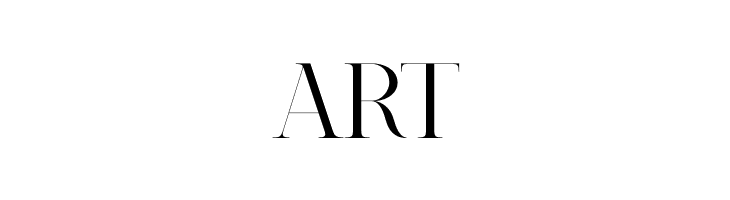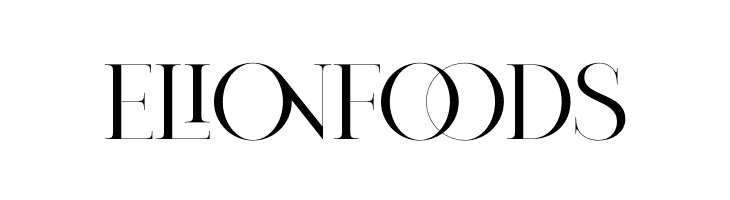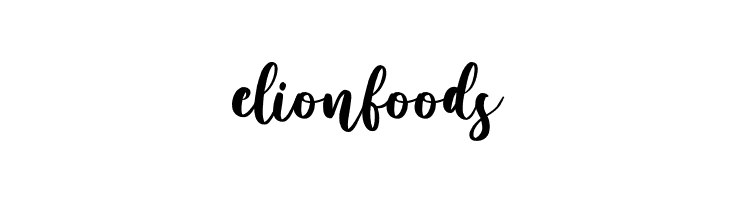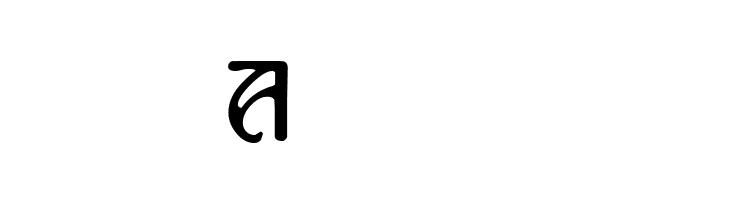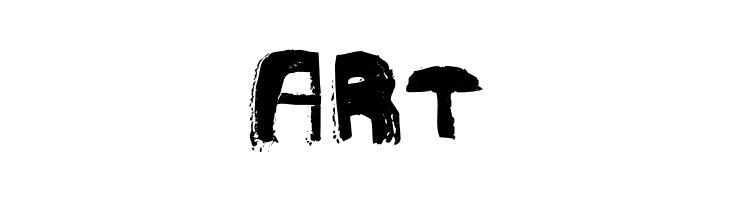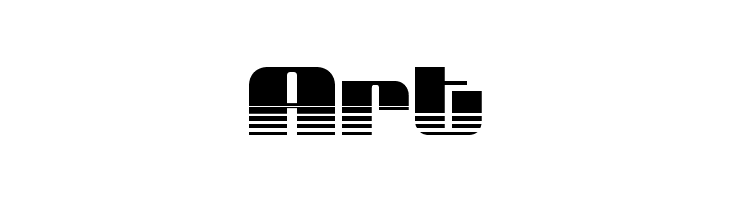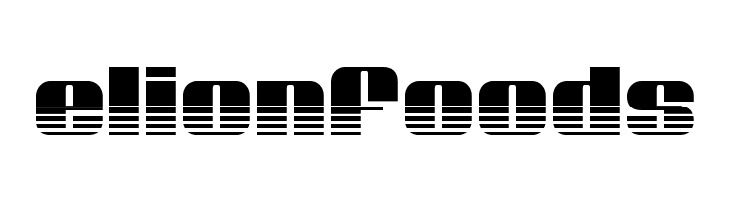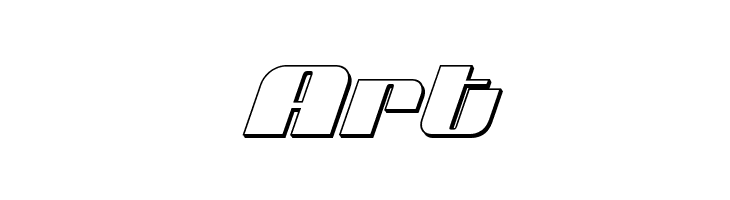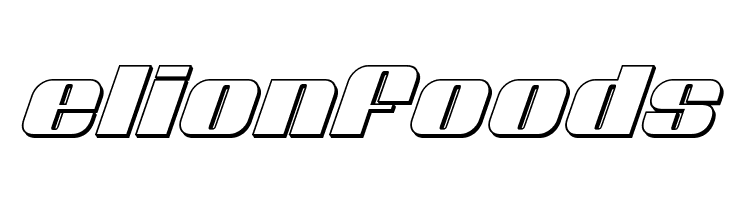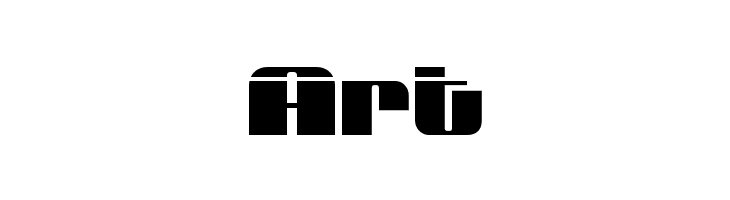
• Nolo Contendre 3D Italic
A bold, 3D italic font with outlined characters for a dynamic, modern look.
• Nolo Contendre Gradient
A bold, striped font with a modern, geometric style.
• Nolo Contendre Halftone
A bold, decorative font with a unique halftone effect and wide, blocky characters.
• Nolo Contendre Laser
A bold, geometric font with a stencil-like, industrial design.
• Nomad
A playful and elegant script font with a handwritten feel.
• NoMak
A bold, distressed font with a grunge, vintage style.
• Nomarch Demo
A bold, decorative font with a blend of modern and vintage elements.
• Nomark
An elegant serif font with high contrast and elongated serifs, blending classic and modern styles.
• Nominal5
• Nomitais
A bold, decorative font with triple-line outlines and geometric structure.